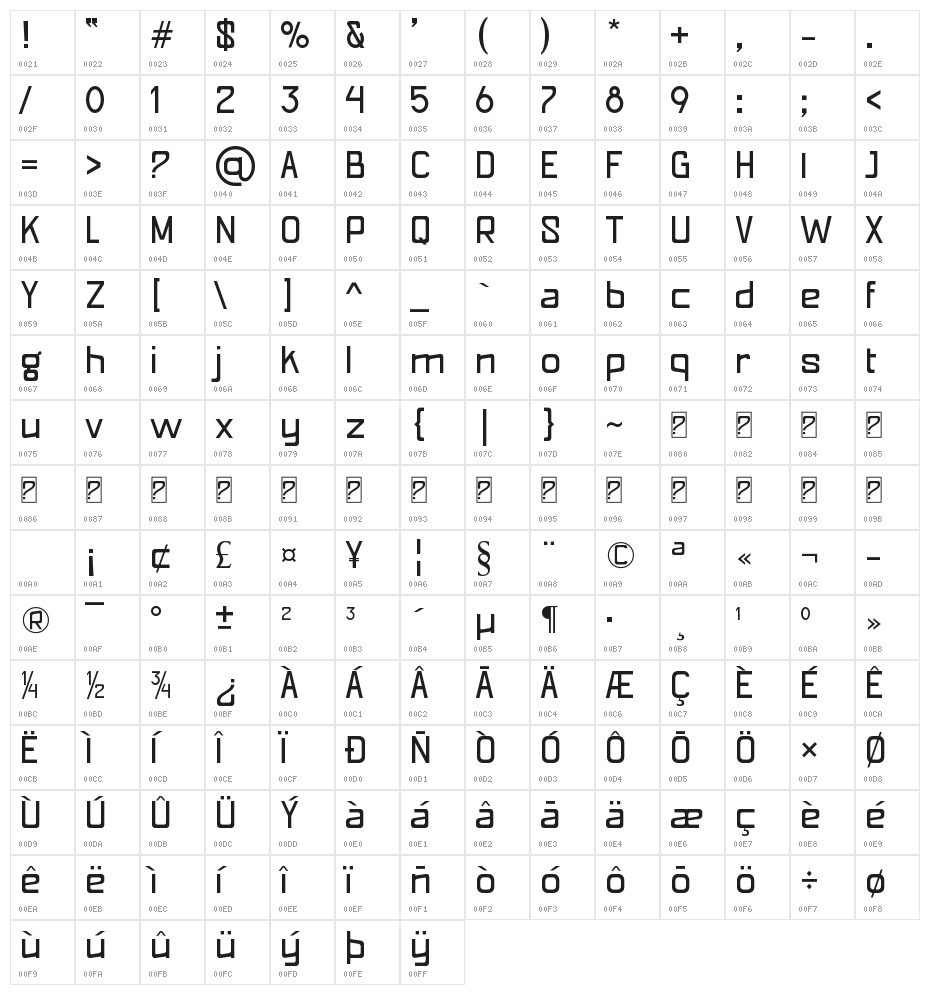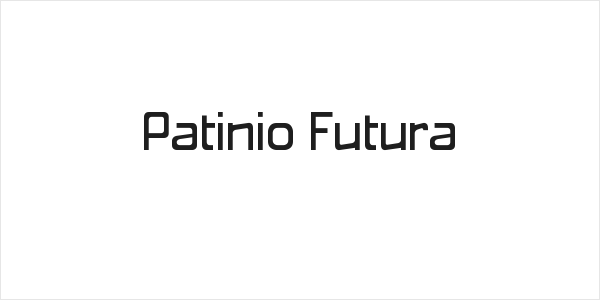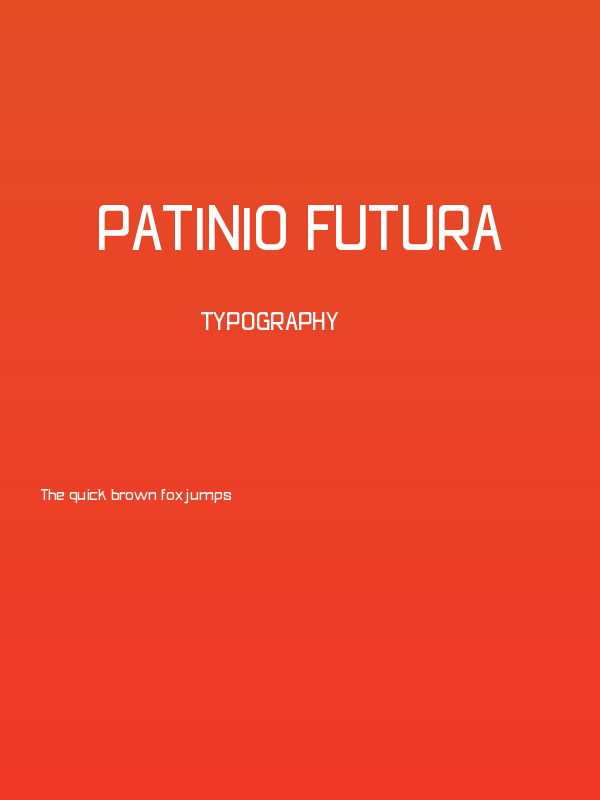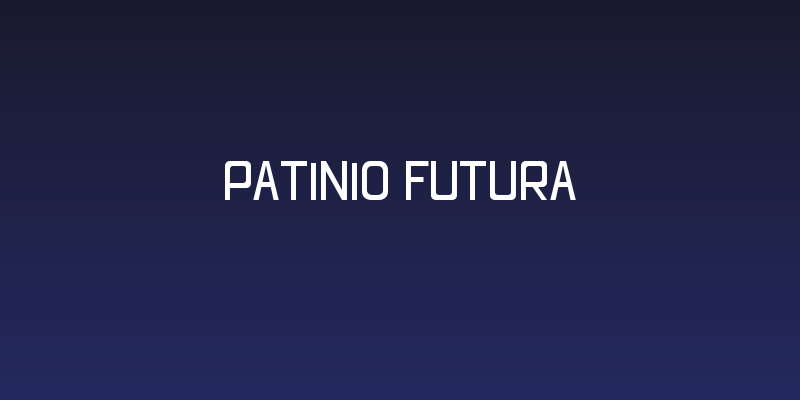
Patinio Futura Font
Patinio Futura Description
This font features a clean, geometric design with a modern aesthetic. The uppercase letters are bold and structured, providing a strong presence. The lowercase letters maintain a similar geometric style, offering a harmonious balance between the two cases. The numerals are distinct and easy to read, following the same geometric principles. Special characters are well-integrated, maintaining the overall style. The font's uniform stroke width and lack of serifs contribute to its sleek and contemporary look, making it versatile for various design applications.
| Proposed Projects | Ideal for branding, advertising, web design, and editorial layouts where a modern and clean look is desired. |